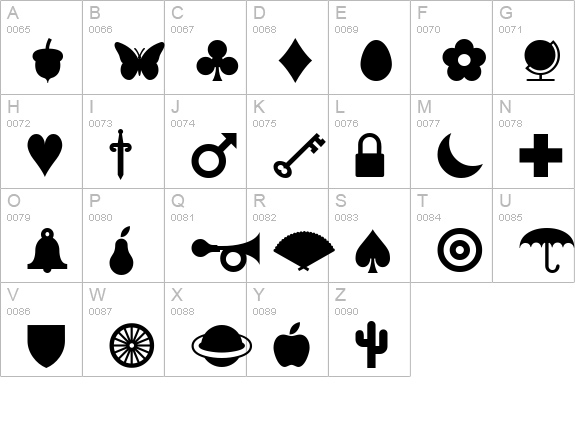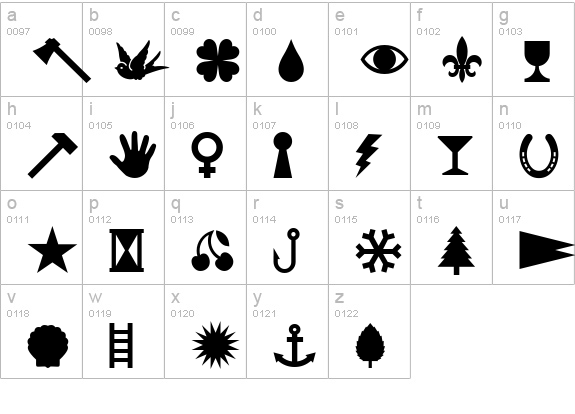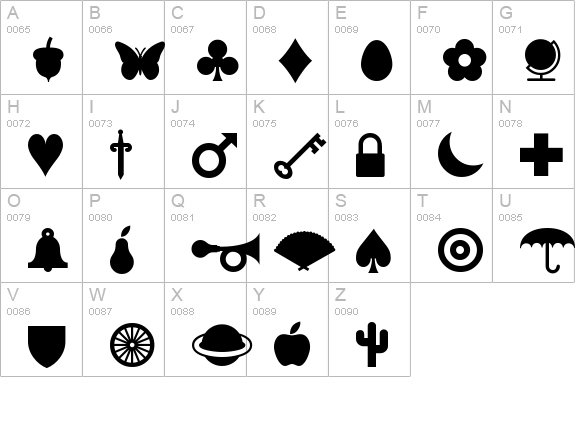
Harold's Pips Font Details
Harold's Pips font is a delightful and playful typeface, perfect for adding a touch of whimsy to any design project. With its unique and eye-catching letterforms, this font will capture the attention of viewers and make your message stand out. What sets Harold's Pips font apart is that it is not only visually appealing but also freely available to download. Yes, you read that right – this fantastic font can be yours at absolutely no cost. Thanks to its generous creators, Harold's Pips font can be accessed and enjoyed by designers, creatives, and enthusiasts alike, without any limitations or restrictions. Imagine the possibilities with this free font! Whether you're designing a logo, crafting an invitation, or sprucing up a website, Harold's Pips font will add that extra touch of charm and personality. Its playful and whimsical nature will inject joy and creativity into your projects, making them truly memorable. To get your hands on this amazing font, simply head over to FontsMarket.com. There, you'll find Harold's Pips font waiting for you, ready to be downloaded and utilized in all your design endeavors. With just a few clicks, you can have this remarkable font at your disposal, free of charge. Don't miss out on this opportunity to enhance your designs with Harold's Pips font. Download it today and let your creativity soar with this captivating and freely available typeface.